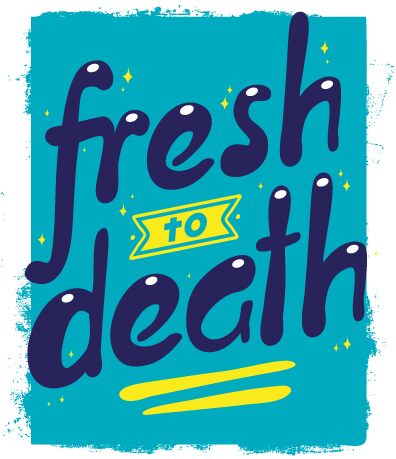
Fresh to Death by Ulrich Vinyl is a free cartoon display font with tall, loose letters and an offbeat, hand-drawn silhouette. Stroke widths shift noticeably across the alphabet, and the uneven heights, rounded bends, and narrow joins give the lettering a restless, improvised pace.
Comedy, youth culture, and casual food themes give this style its strongest setting, especially on energetic event posters and irreverent novelty snack packaging. It also suits playful merchandise and children's publishing. The exaggerated shapes can become part of a character-driven illustration, making the font especially useful for comic entertainment and lighthearted branding aimed at younger audiences.